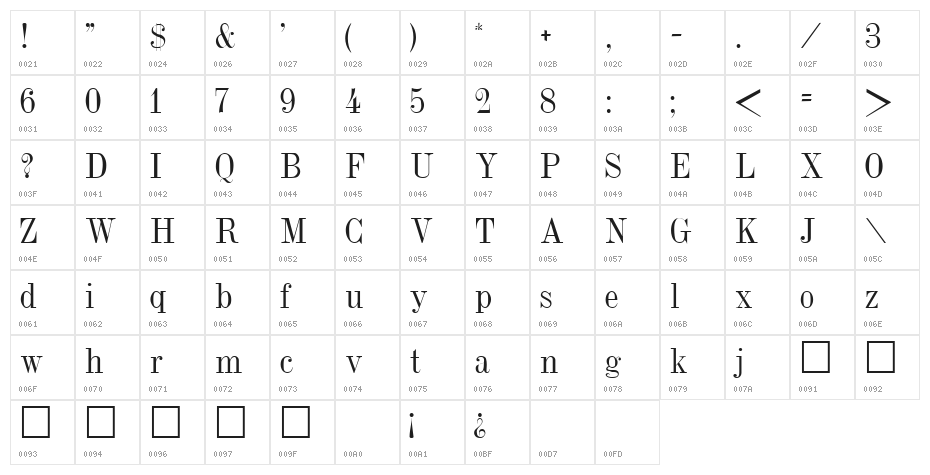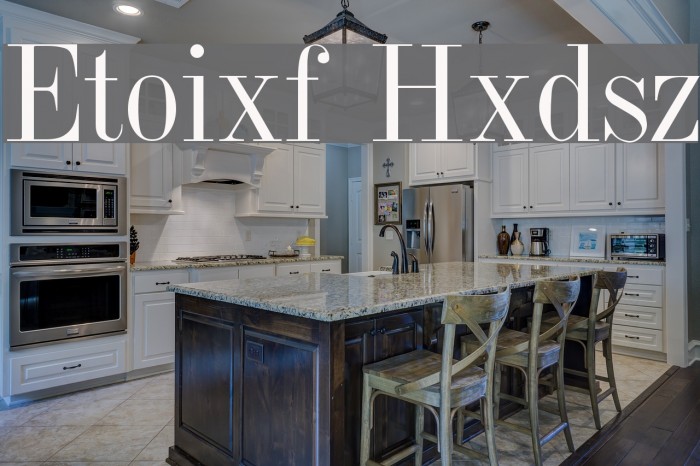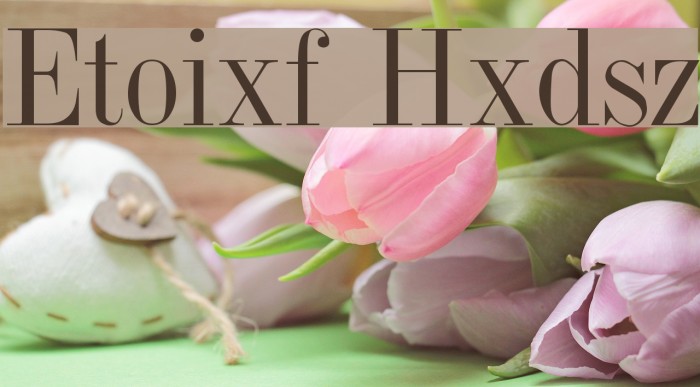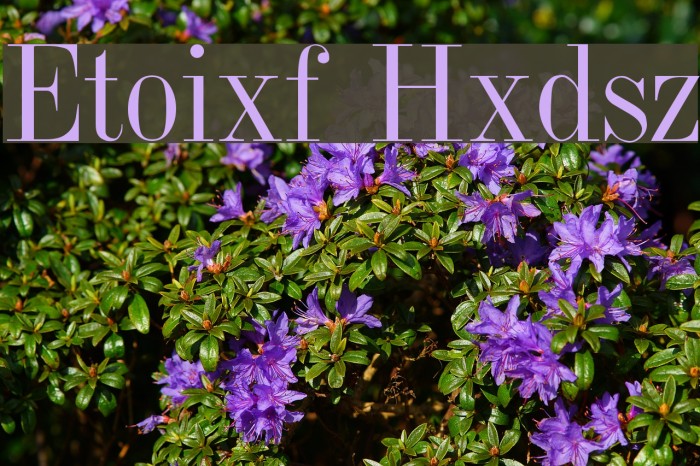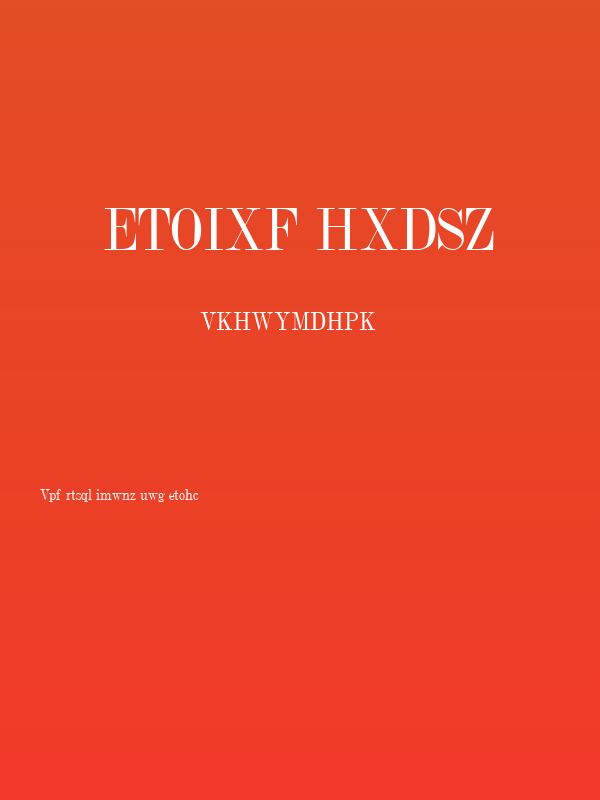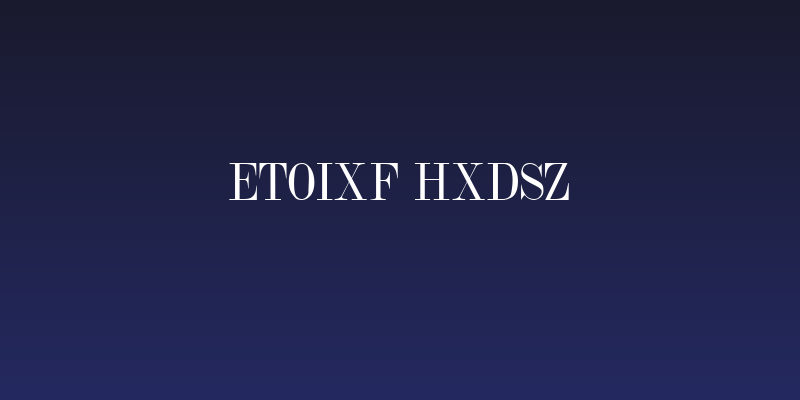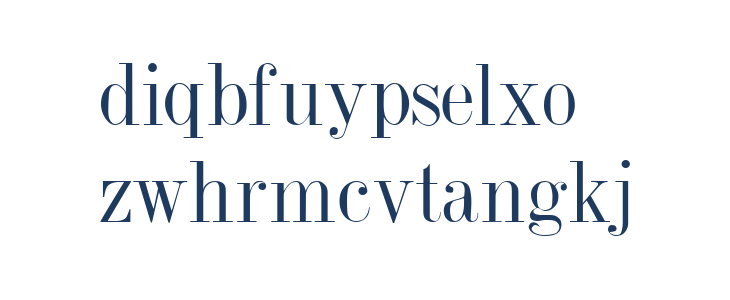
Jumble Plain Font
Jumble Plain Description
This font features a classic serif style with high contrast between thick and thin strokes, giving it an elegant and sophisticated appearance. The serifs are sharp and pronounced, adding to the traditional feel. The uppercase letters are tall and commanding, while the lowercase letters maintain a consistent flow with slightly rounded edges. The numerals are proportional and align well with the overall design. Special characters are distinct and maintain the font's refined aesthetic. The spacing between characters is normal, ensuring readability while preserving the font's formal tone.
| Proposed Projects | Ideal for editorial design, book covers, formal invitations, and branding that requires a touch of sophistication. |